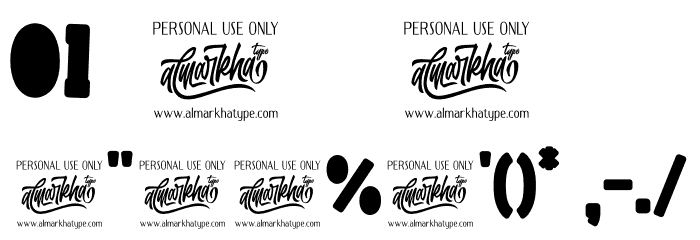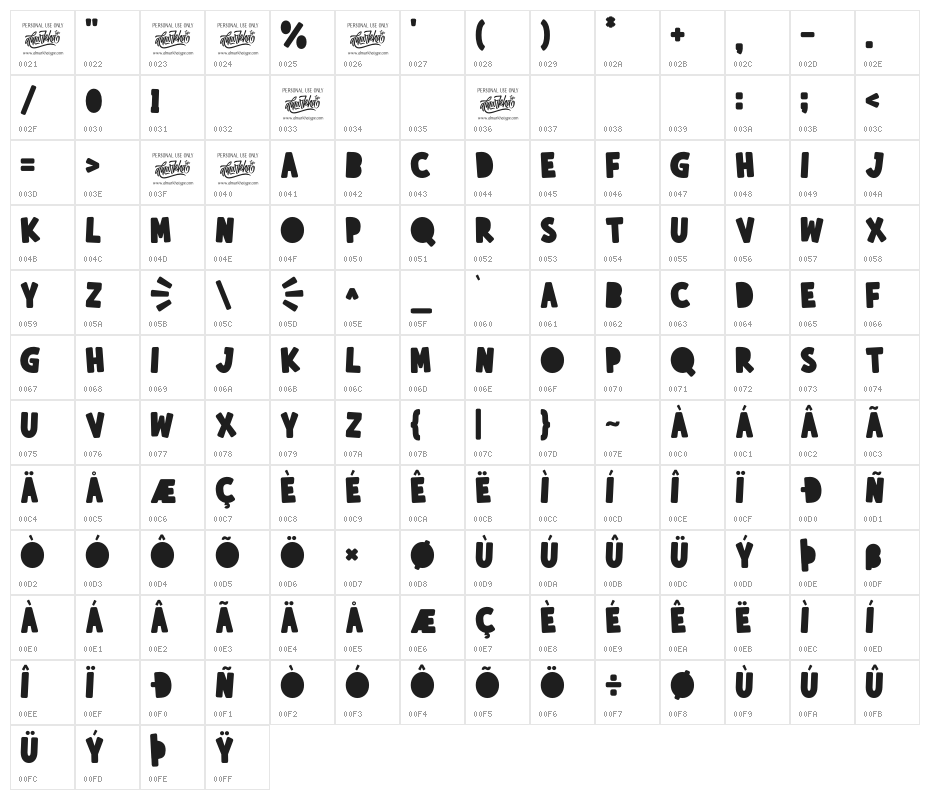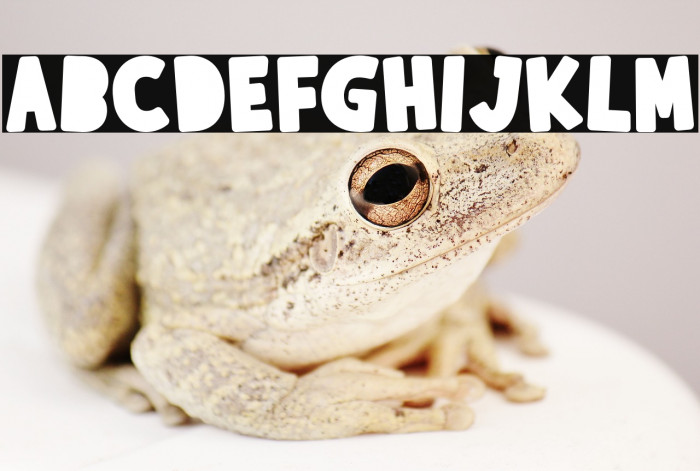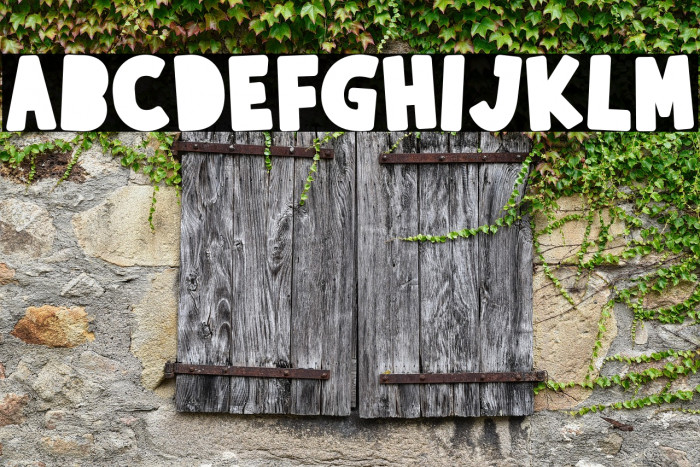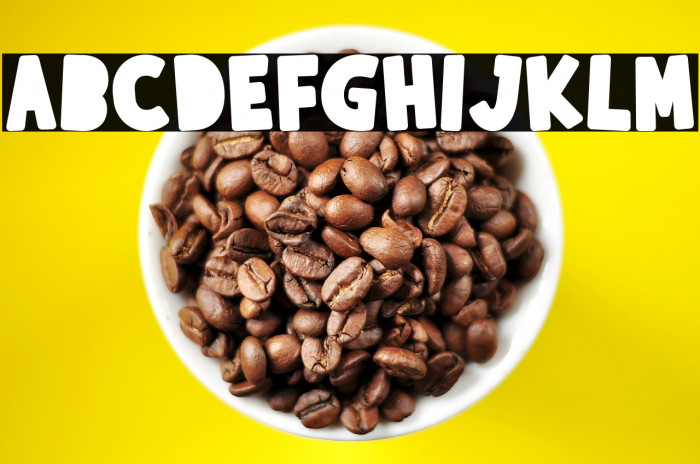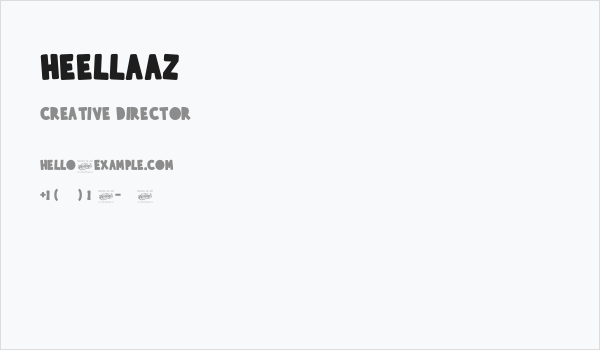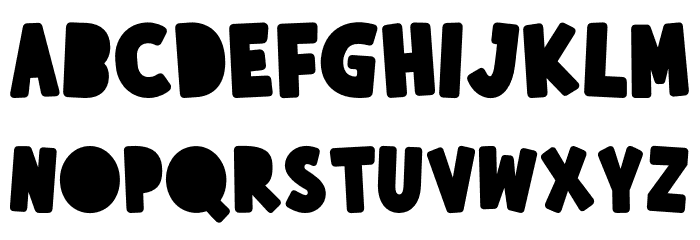
Heellaaz Font
Heellaaz Description
This font features bold, rounded characters with a playful and informal style. The uppercase letters are prominent and slightly condensed, giving a strong visual impact. The numbers and special characters maintain the same boldness and rounded edges, ensuring consistency throughout. The overall design is modern and eye-catching, making it suitable for projects that require a fun and engaging look. The font's thick strokes and uniform weight contribute to its high readability, even at smaller sizes.
Proposed ProjectsIdeal for children's books, playful branding, posters, and social media graphics.